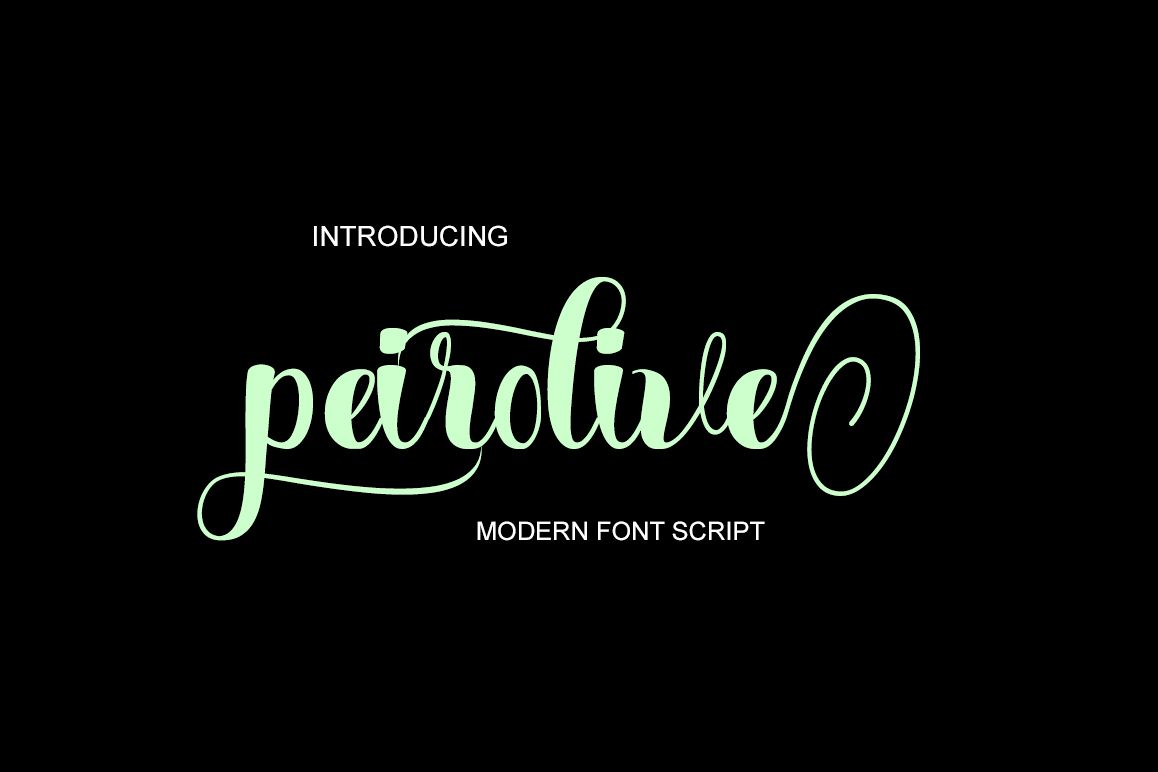
Peirolive Script
Peirolive
PEIROLIVE Modern Calligraphy. This font was designed by handwriting, and it has a modern and unique forms of calligraphy, the writing style is very natural.
The Features of this fonts is;
Standart ligatures
Stylistic Alternates
Contextual Alternates